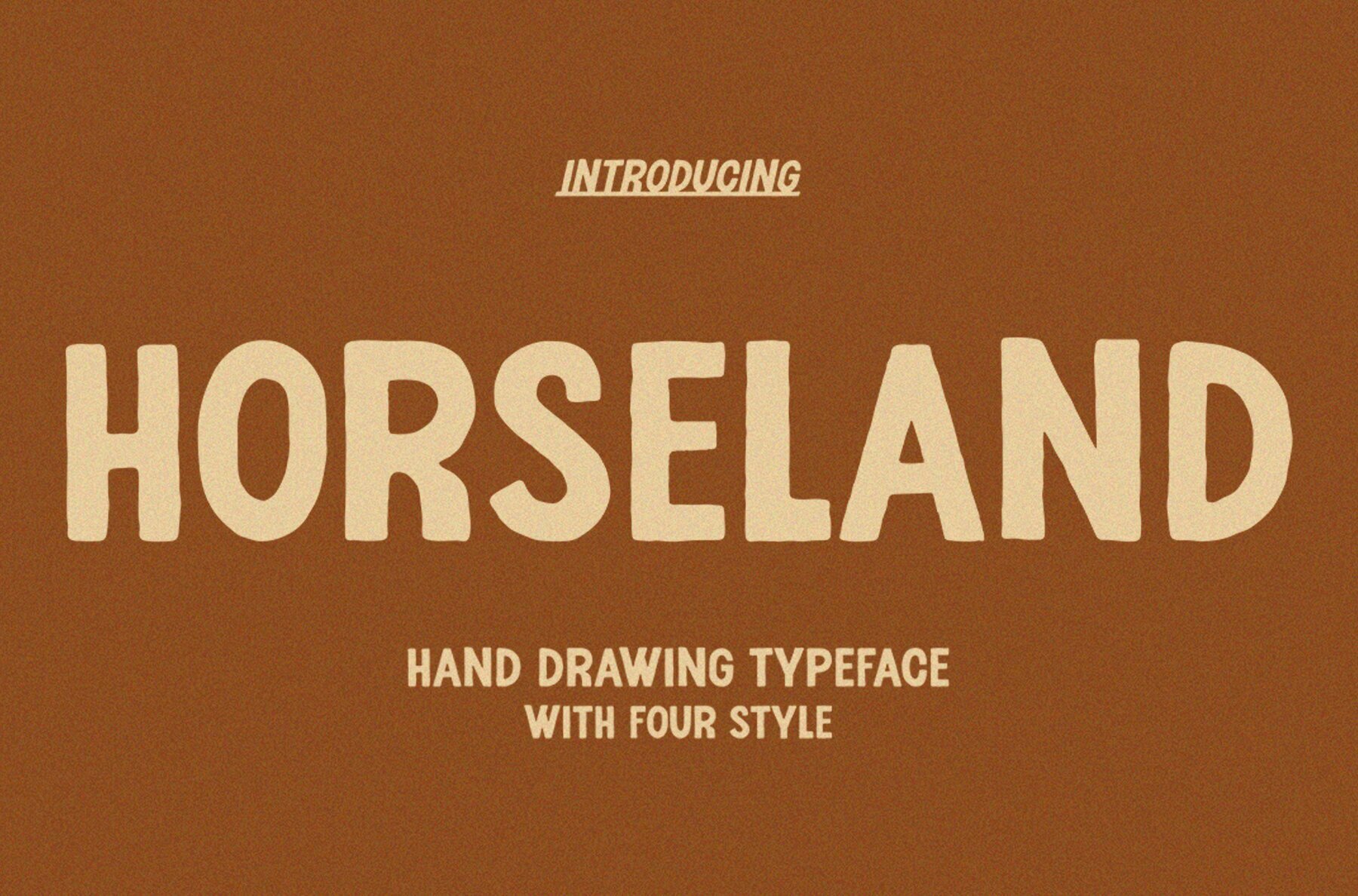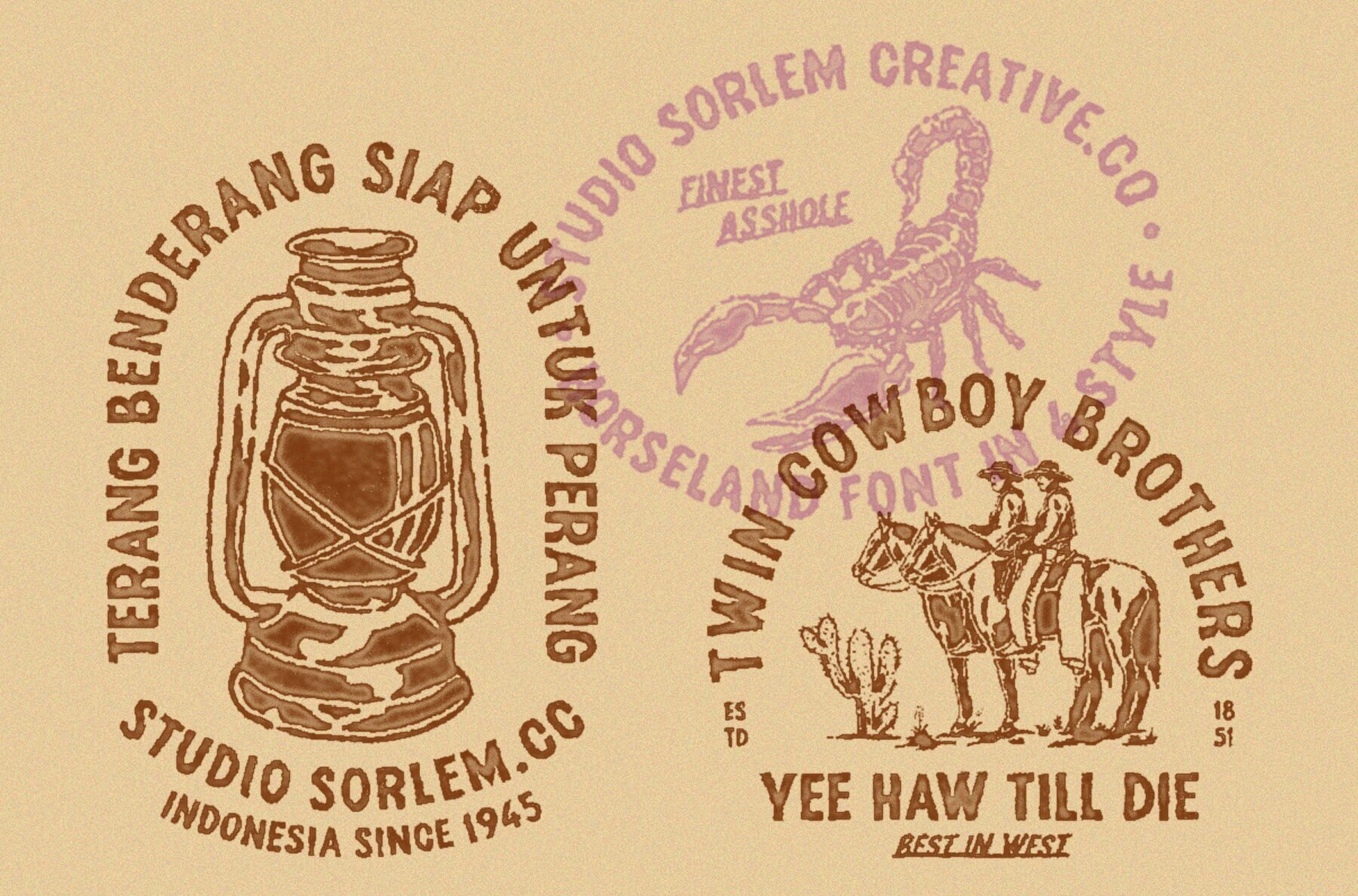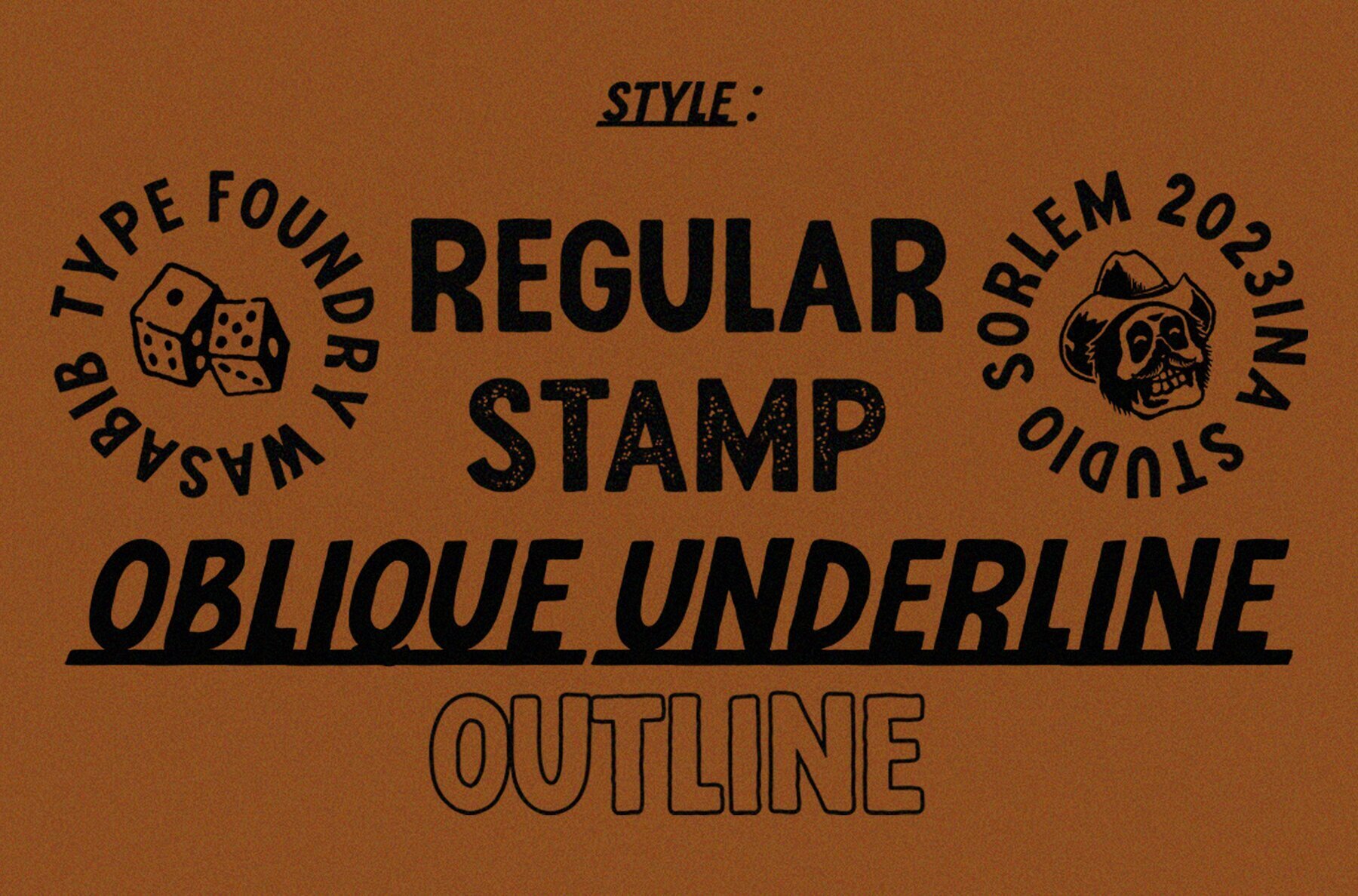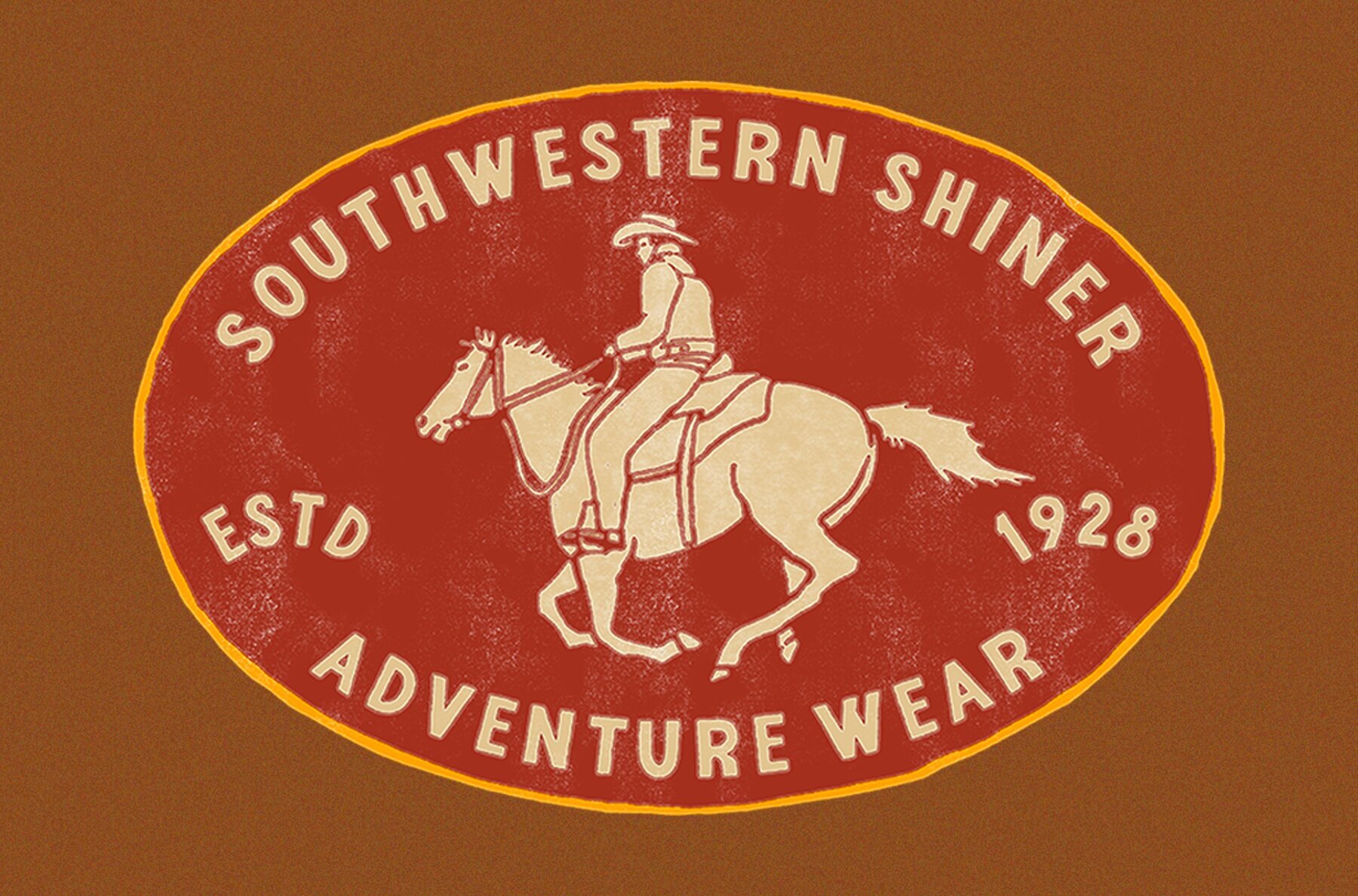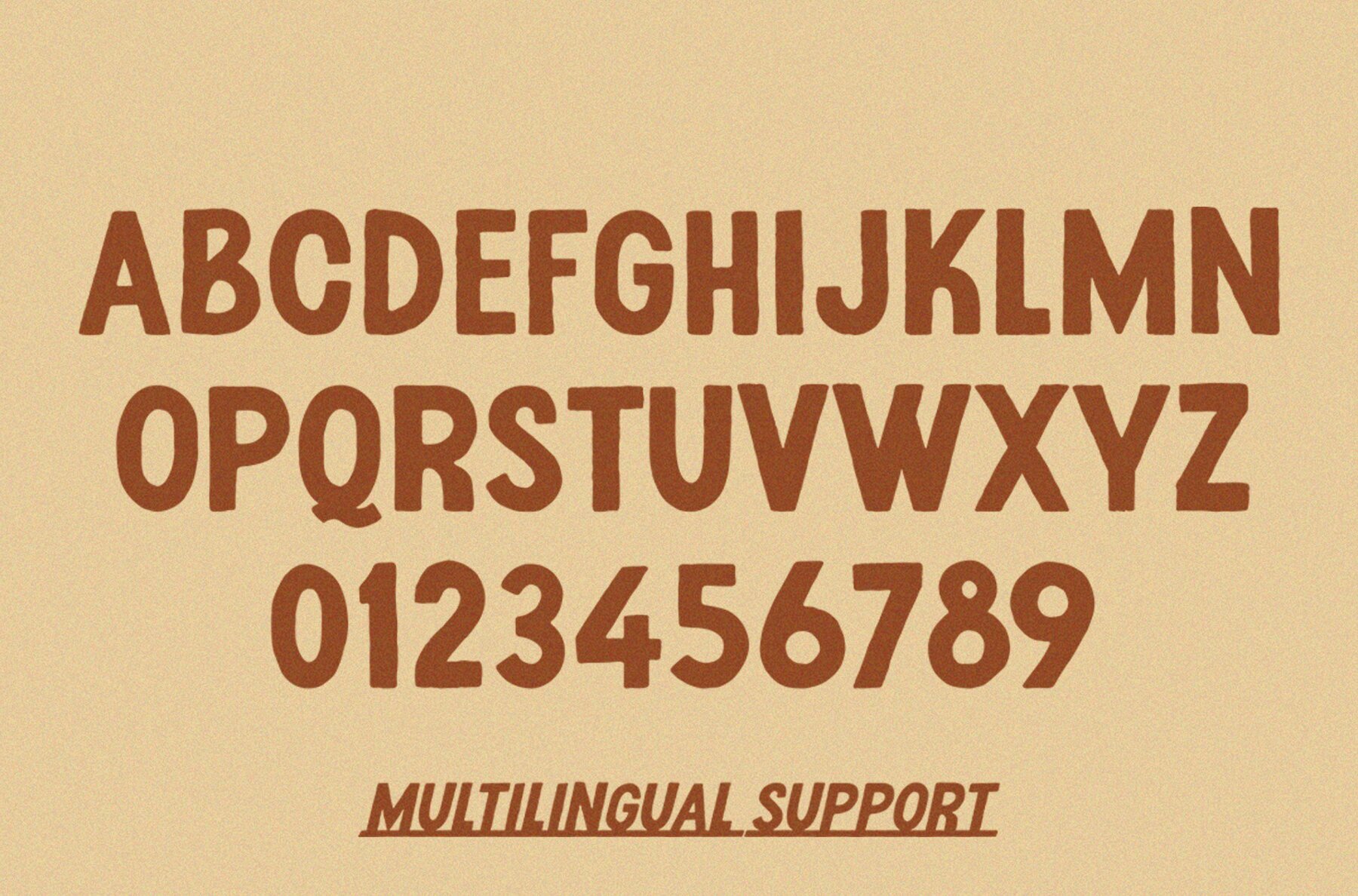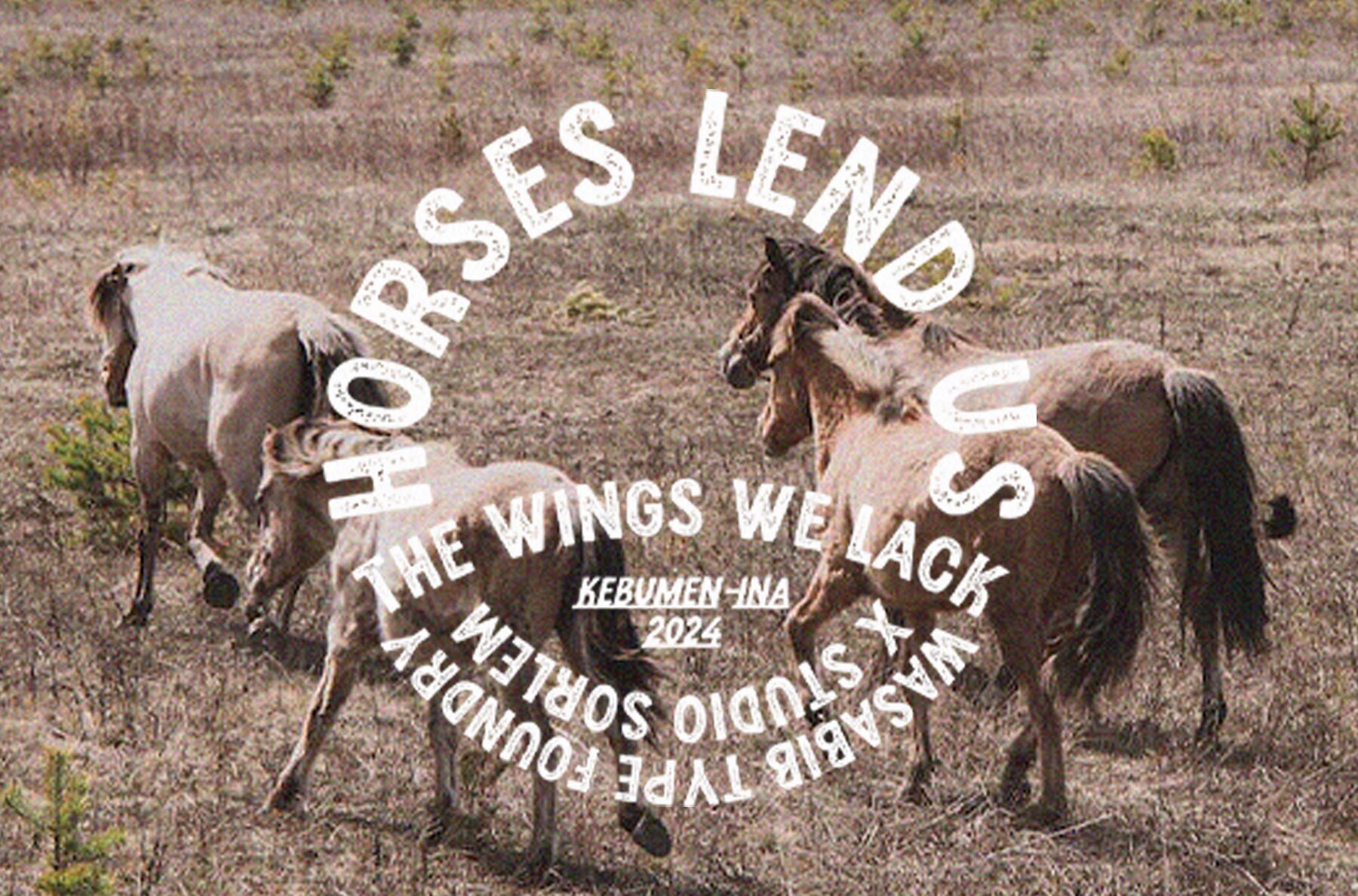
Horseland Font
Horseland is a hand-drawn vintage typeface, perfect for creating designs with a nostalgic and charming flair. Its textured appearance imbues projects with depth and character, making it ideal for those pursuing a vintage aesthetic. Horseland captures the essence of handmade lettering, effortlessly conveying a sense of authenticity and warmth. This font comes in four distinct styles, each offering a unique touch to enhance your designs.
The Regular style of Horseland exhibits the intricate details and charming imperfections of traditional hand-drawn letterforms. The Stamp style replicates the feel of stamped ink, providing a rustic and aged appearance. The Slant Underline version introduces an energetic twist with its dynamic line addition, while the Outline style offers a fresh way to highlight letterforms, delivering versatile and striking compositions. Whether for logos, posters, or packaging, Horseland enhances your projects with a genuine hand-crafted look.